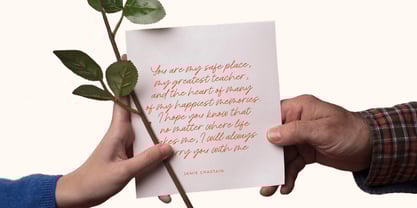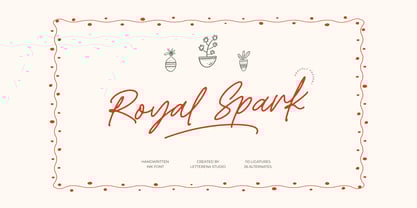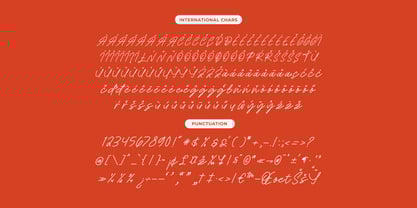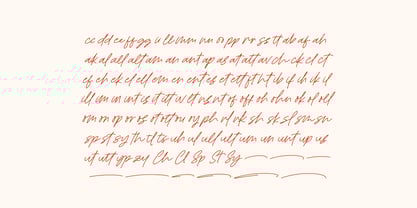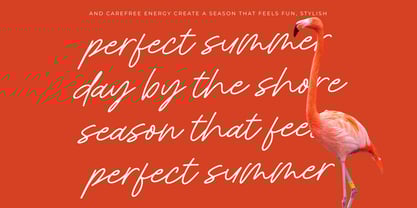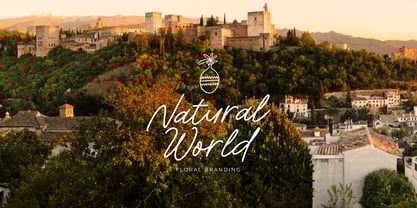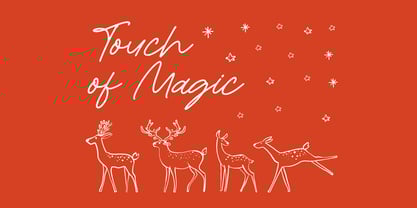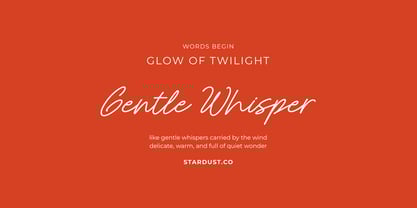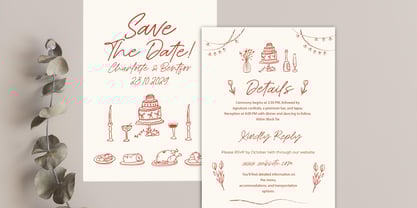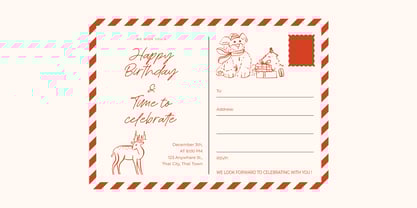
Royal Spark Italic
by Letterena Studios
The Royal Spark Italic Font Family was designed by Heru Utama Putra and published by Letterena Studios. Royal Spark Italic contains 2 styles and family package options. More about this family
Royal Spark is a relaxed handwritten ink font crafted with natural strokes, smooth curves, and an organic flow that brings a warm, personal touch to any design project. Featuring 110 ligatures and 26 stylistic alternates, this typeface captures the charm of authentic handwriting while offering the flexibility needed for branding, invitations, packaging, logos, quotes, greeting cards, and lifestyle-inspired layouts. Its effortless movement, playful irregularities, and subtle ink texture make Royal Spark perfect for designers seeking a friendly, modern script with character and authenticity, ideal for projects that need both personality and elegance.